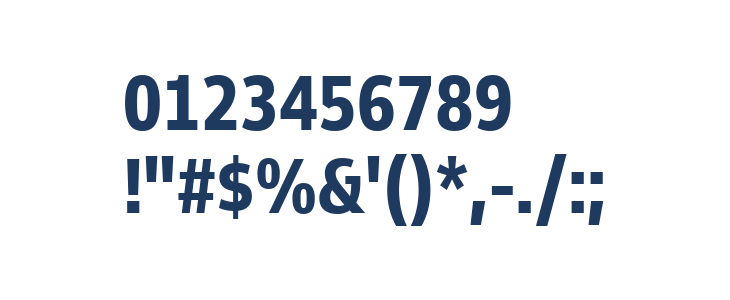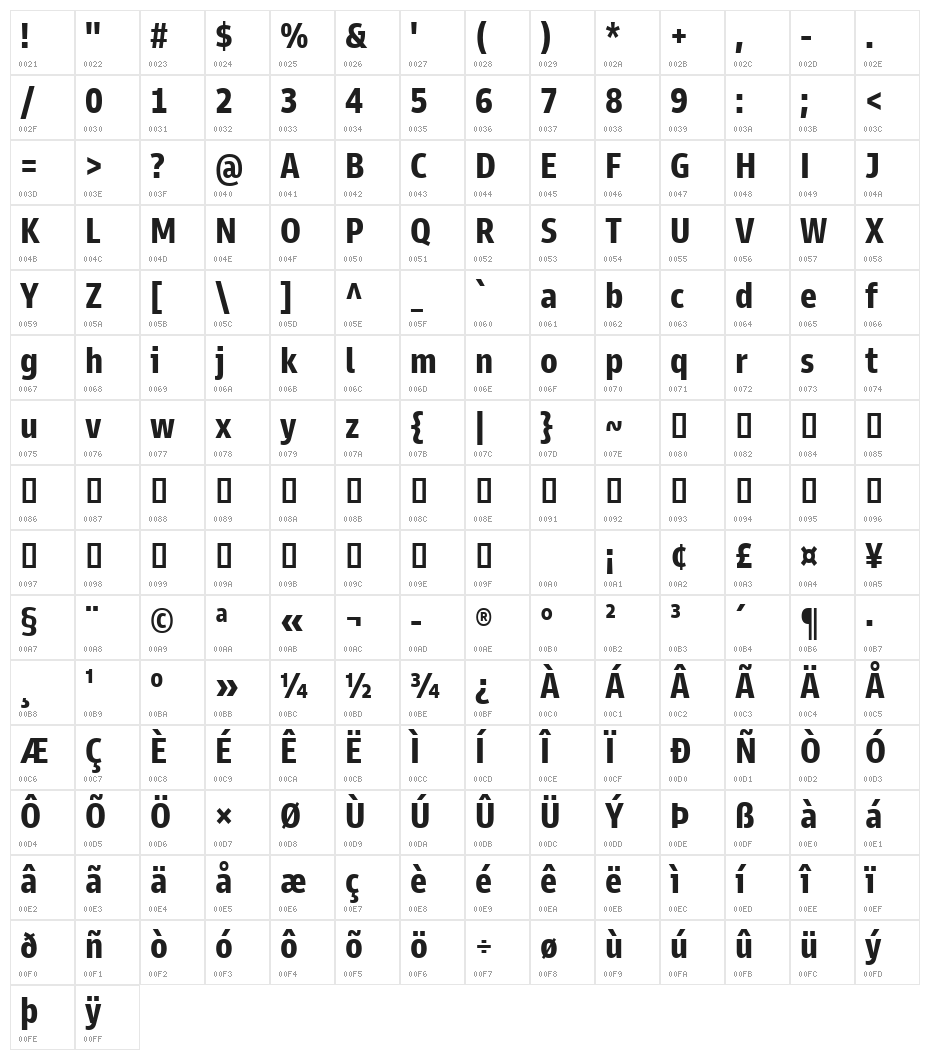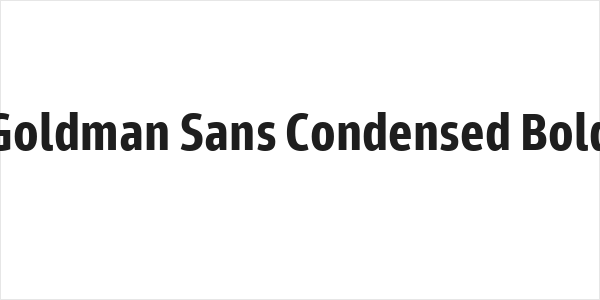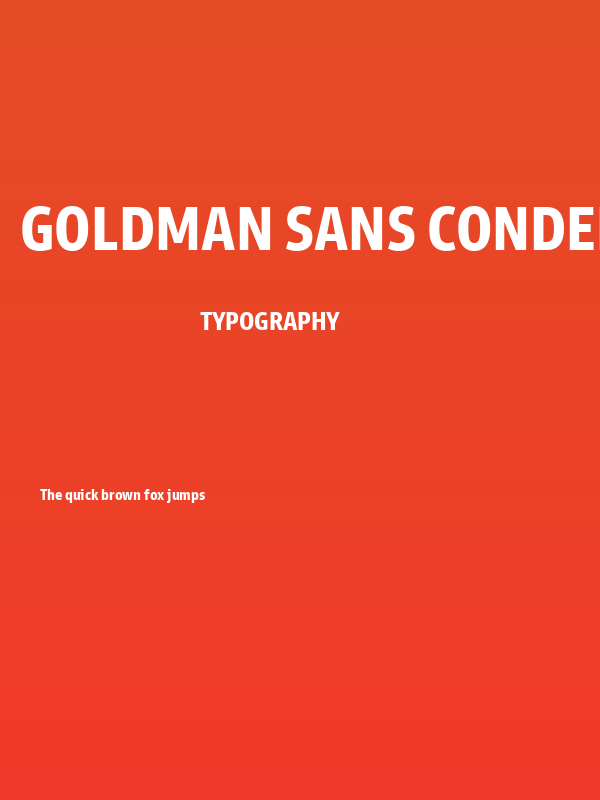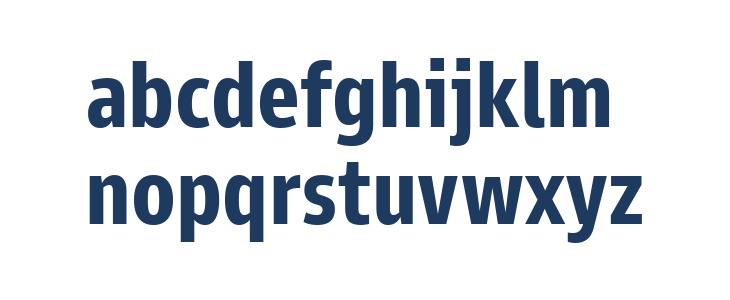
Goldman Sans Condensed Bold Font
Goldman Sans Condensed Bold Description
This font features a bold and condensed style, characterized by strong, clean lines and a modern sans-serif appearance. The uppercase and lowercase letters maintain a consistent height, providing a uniform look. The numerals are clear and easily distinguishable, while the special characters are well-defined, making them suitable for various applications. The overall design is sleek and contemporary, with a focus on readability and impact. Its condensed nature allows for efficient use of space, making it ideal for headlines and titles where space is limited.
| Proposed Projects | Ideal for headlines, posters, branding, and advertising where a strong visual impact is needed. |